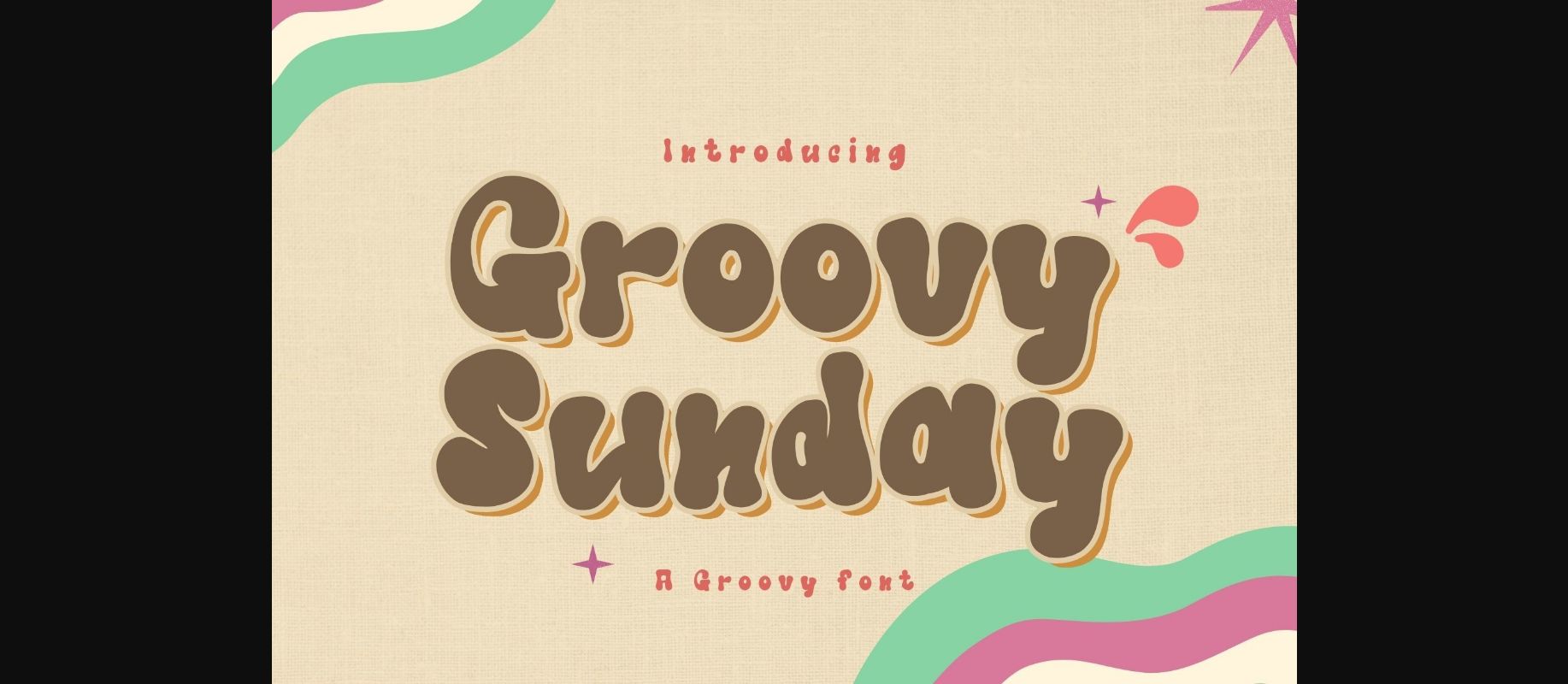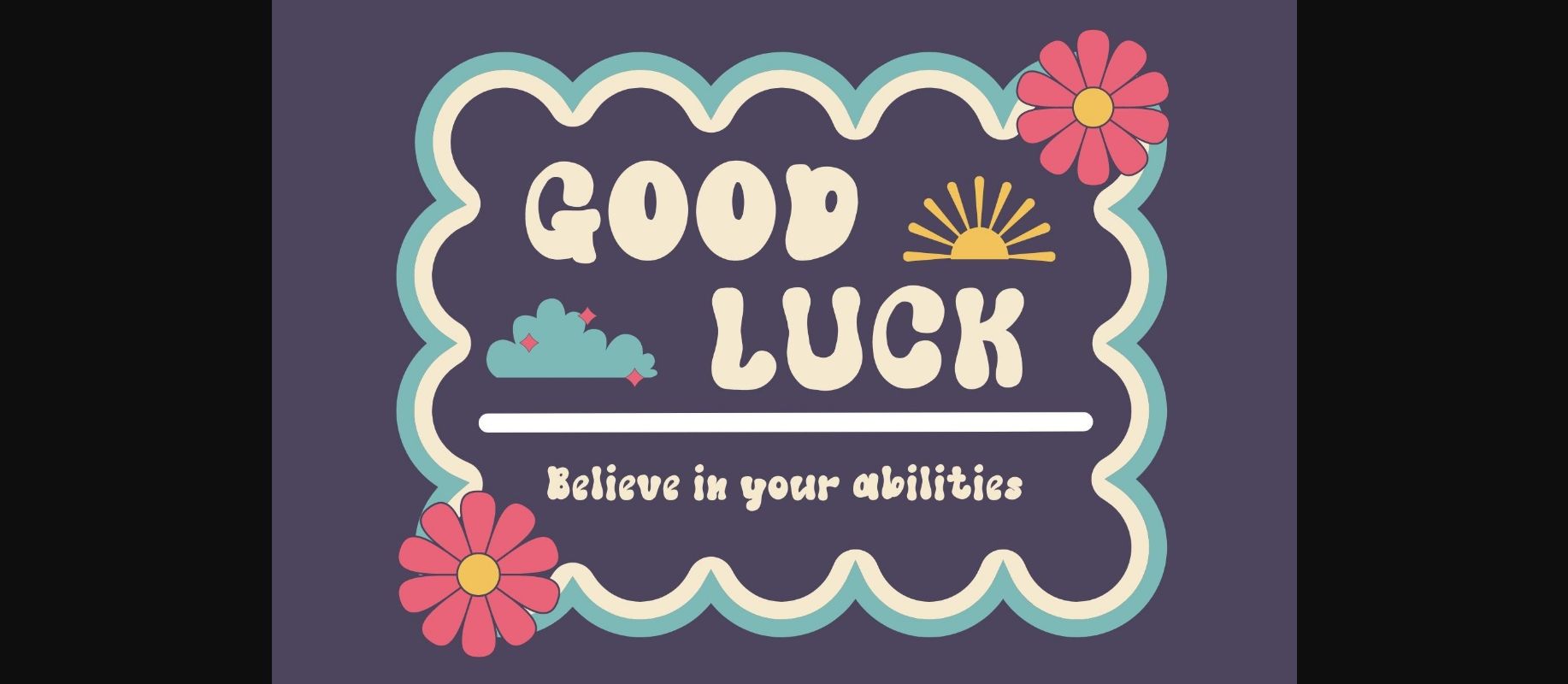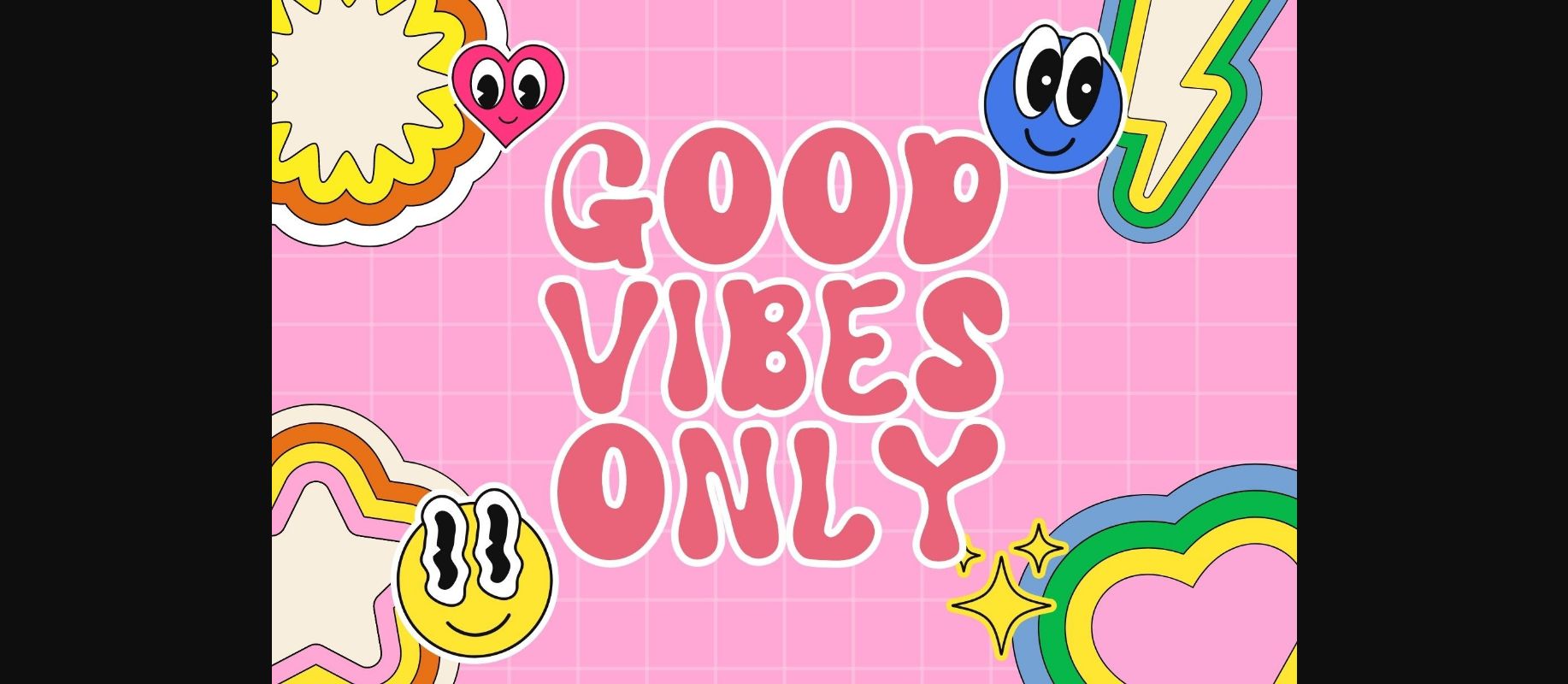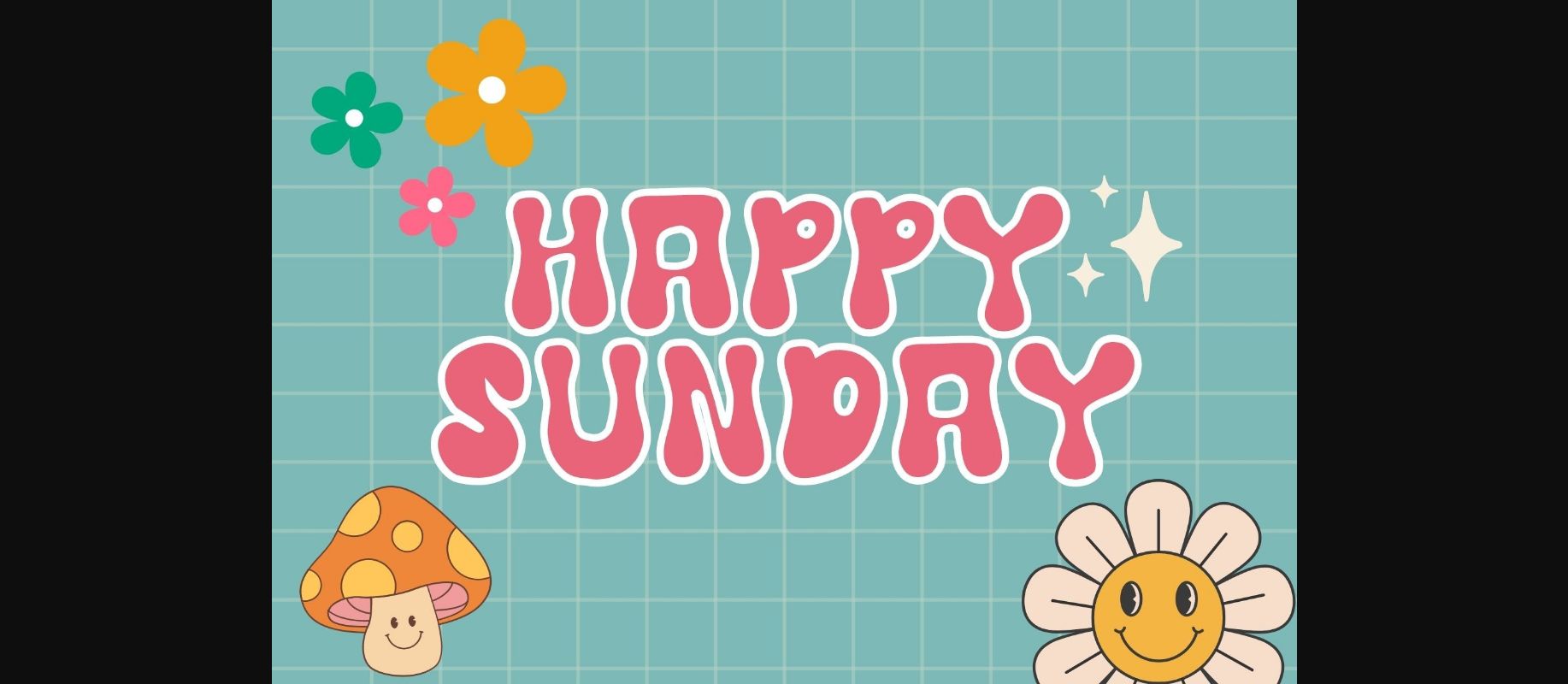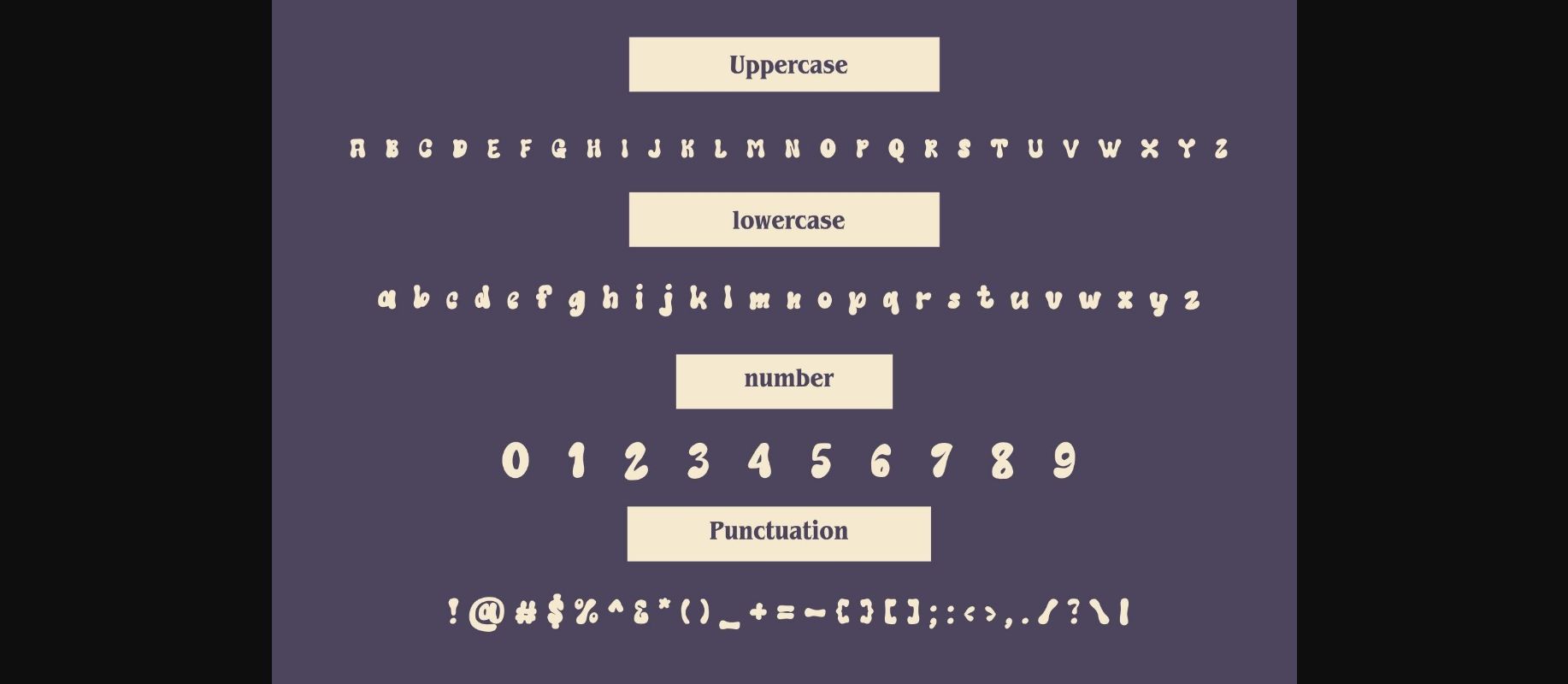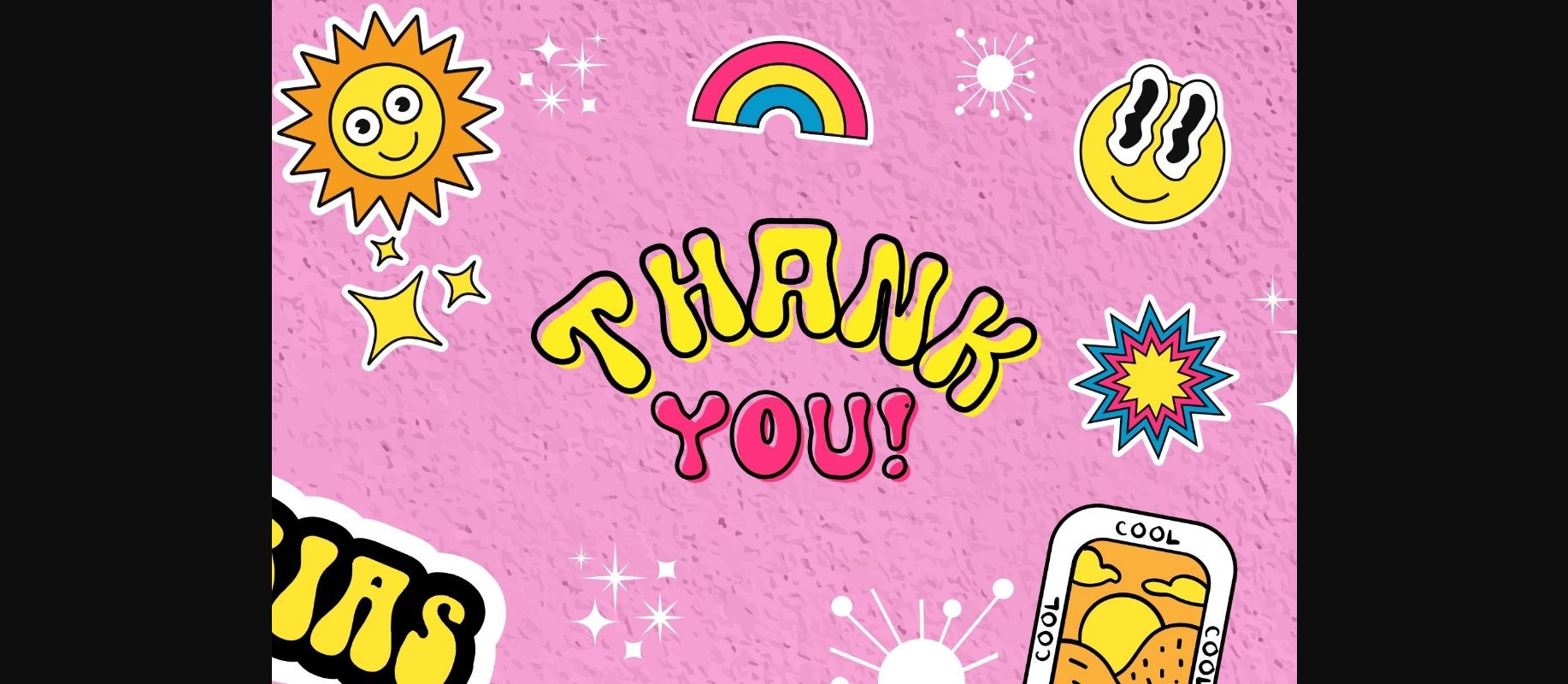
Groovy Sunday Font
About Groovy Sunday Font
Groovy Sunday is a cool retro groovy display font. The additional elements of blood dripping and bones-like letters make an ambiance of horror Invitations, postcards, posters, and headings for a Halloween event; this font can be used in every setting.